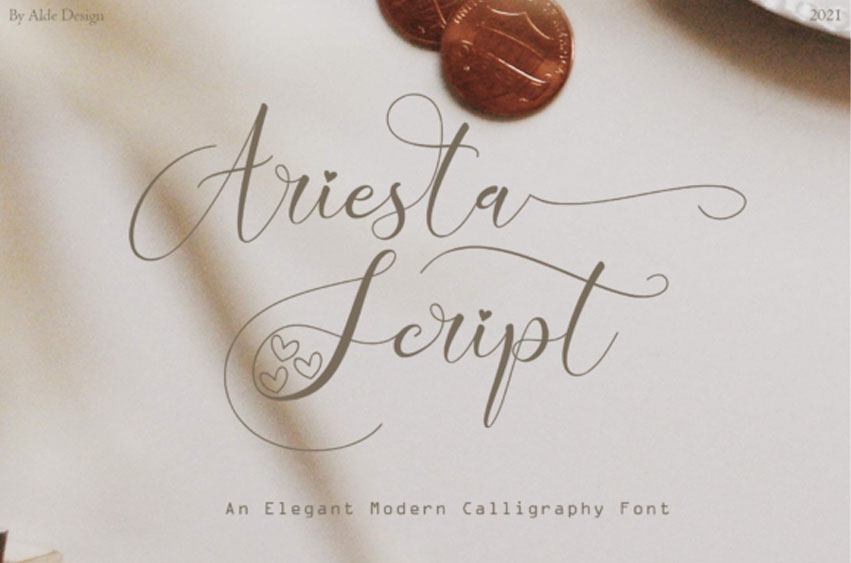
Ariesta Script Font
Ariesta Script Font is a beautiful and light handwritten font with a unique feel and a stunning impact. It will add a luxury spark to any design project that you wish to create!
This font is PUA encoded, which means you can access all of the amazing glyphs and ligatures with ease!